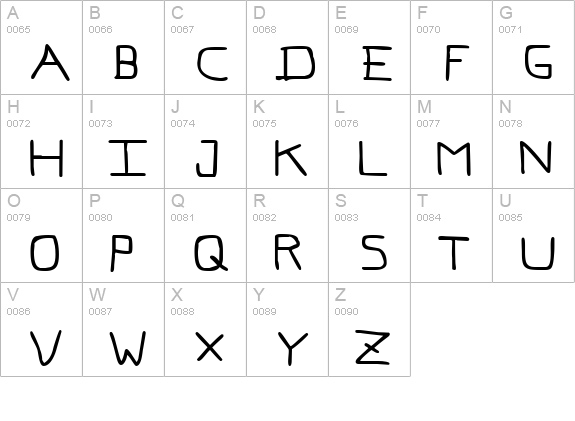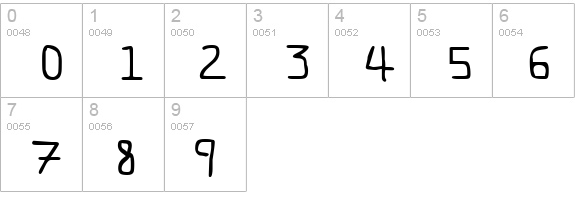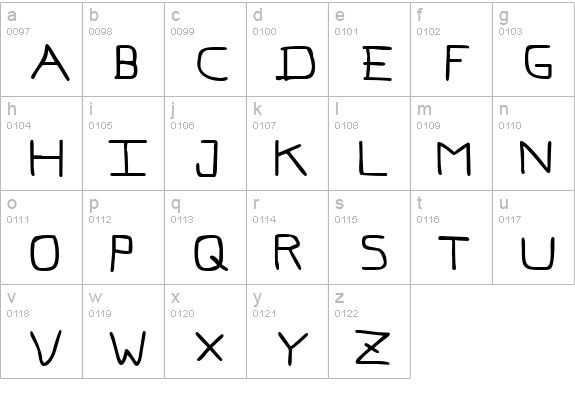
Pf_veryverybadfont7 Font Details
Pf_veryverybadfont7 is a one-of-a-kind font that will leave a lasting impression on anyone who comes across it. With its unique and quirky design, this font is perfect for adding a touch of whimsy to any project. Whether you're creating a poster, a logo, or even just a fun personal project, Pf_veryverybadfont7 is sure to make a statement. The irregular and imperfect letterforms of Pf_veryverybadfont7 give it a hand-drawn quality that adds character and personality to any design. It's as if each letter was lovingly crafted by hand, making this font truly special. But what sets Pf_veryverybadfont7 apart from other fonts is that it is completely free. That's right – you can download this font for absolutely no cost at FontsMarket.com. We believe that creativity should be accessible to everyone, and that's why we're offering Pf_veryverybadfont7 as a free download. So go ahead, unleash your creativity and download Pf_veryverybadfont7 today. Whether you're a seasoned designer or just starting out, this font will inspire you to think outside the box and create something truly unique. Don't miss out on this opportunity to add some fun and personality to your projects – download Pf_veryverybadfont7 for free at FontsMarket.com now.